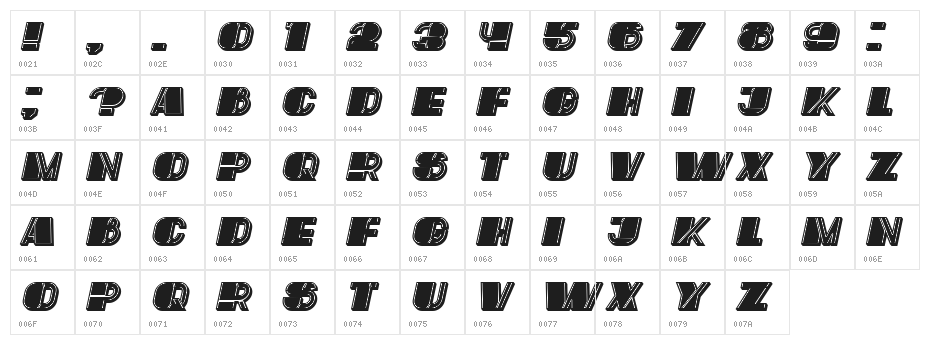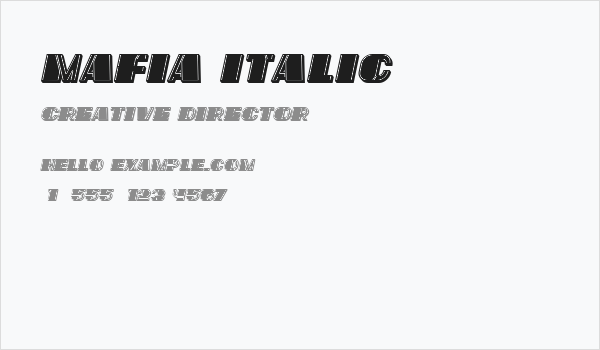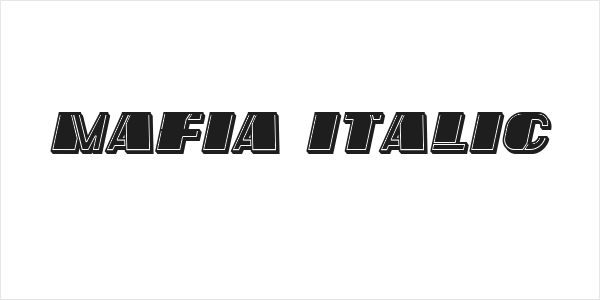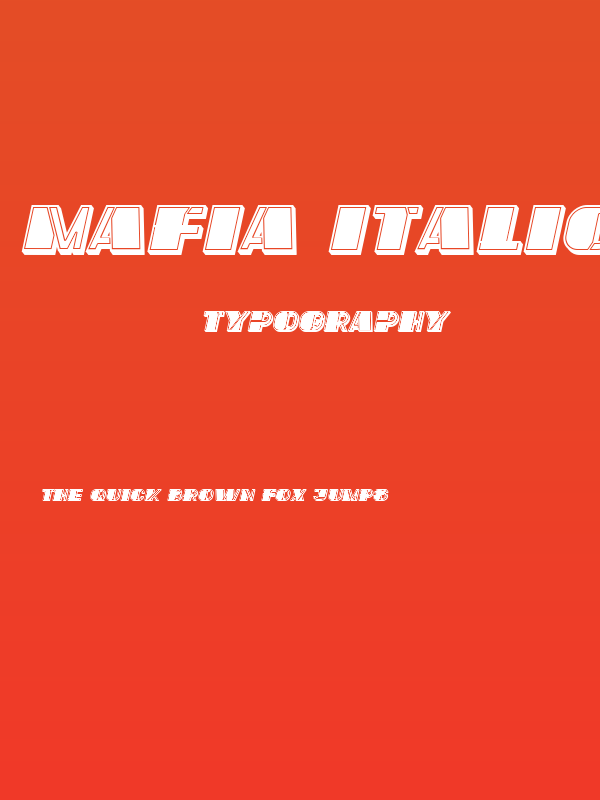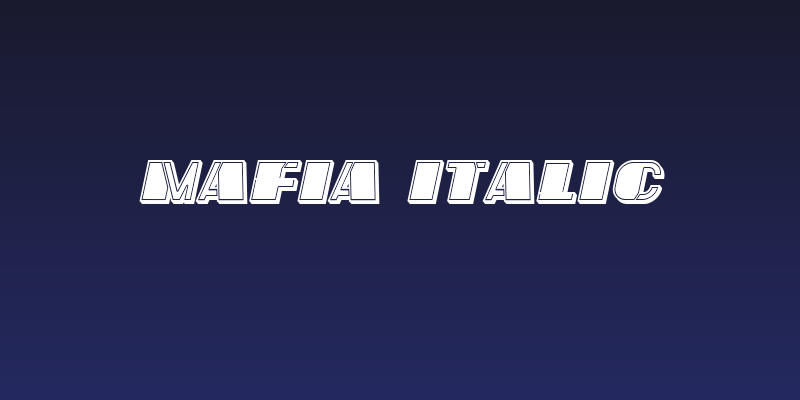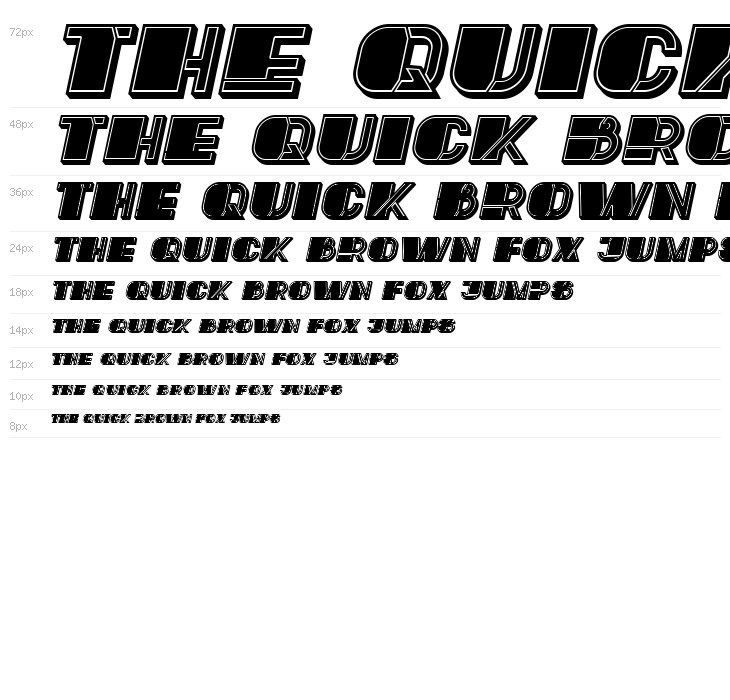
Mafia Italic Font
Mafia Italic Description
This font features a bold and dynamic style with a distinct italic slant, giving it a sense of motion and energy. The characters are outlined with a thick, black border, adding a three-dimensional effect that makes them stand out. The interior of each character is filled with a solid color, enhancing the boldness of the design. The font maintains a consistent weight throughout, ensuring readability while still providing a striking visual impact. The spacing between characters is tight, contributing to its compact and cohesive appearance. This font is ideal for projects that require a strong and assertive presence.
| Proposed Projects | Perfect for headlines, posters, logos, and branding materials that need a bold and energetic look. |